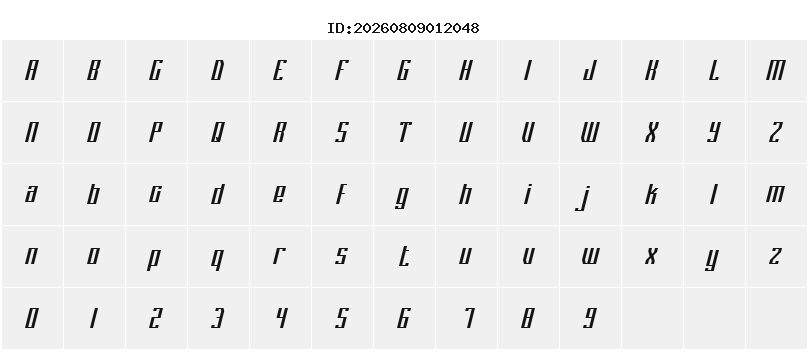
Platform Eight Preview
• Font Name: Platform Eight
• Designer: Frédéric Rich
About Platform Eight.ttf
Platform Eight.ttf is a modern, elegant sans-serif font designed for ultimate readability and visual harmony. Perfect for branding, headlines, web design, and print materials.